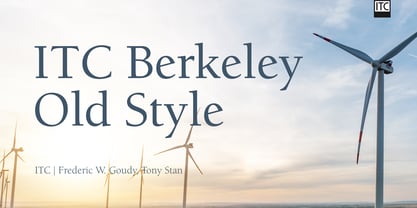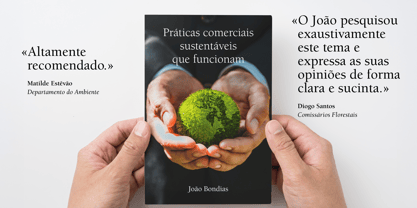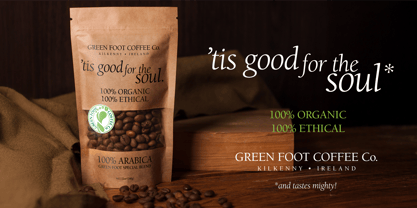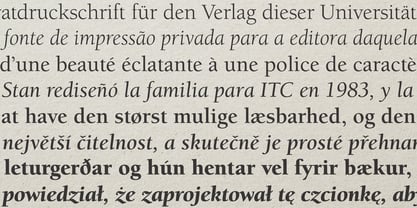
ITC Berkeley Old Style
The ITC Berkeley Old Style Font Family was designed by Frederic W. Goudy, Tony Stan and published by ITC. ITC Berkeley Old Style contains 8 styles and family package options.
ITC Berkeley Old Style is based on a typeface designed by Frederic W. Goudy in 1938 called University of California Old Style. It was a private press type for the publishing house of that school. In 1958, about ten years after Goudy's death, Monotype re-issued the type under the name Californian, and it became a very successful face for book typography. Goudy himself said he designed this face to have the greatest legibility possible, and it is indeed free from the exuberances in some of his other faces. Tony Stan redrew the family for ITC for 1983, and it was named ITC Berkeley Old Style, Berkeley being the city where the University of California Press is located. Stan did a careful drawing of eight styles including italics. ITC Berkeley Old Style is a crisply beautiful tribute to a distinguished typeface, and it works well for books, magazines, and advertising display.